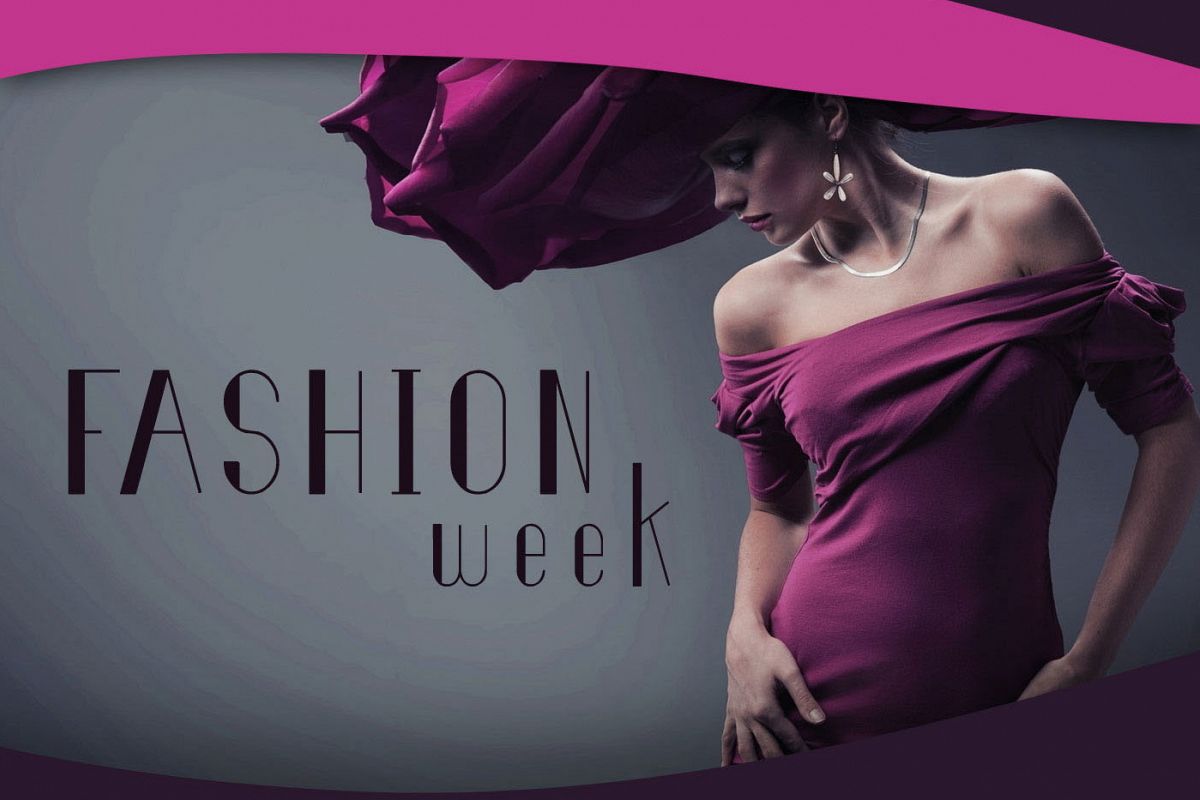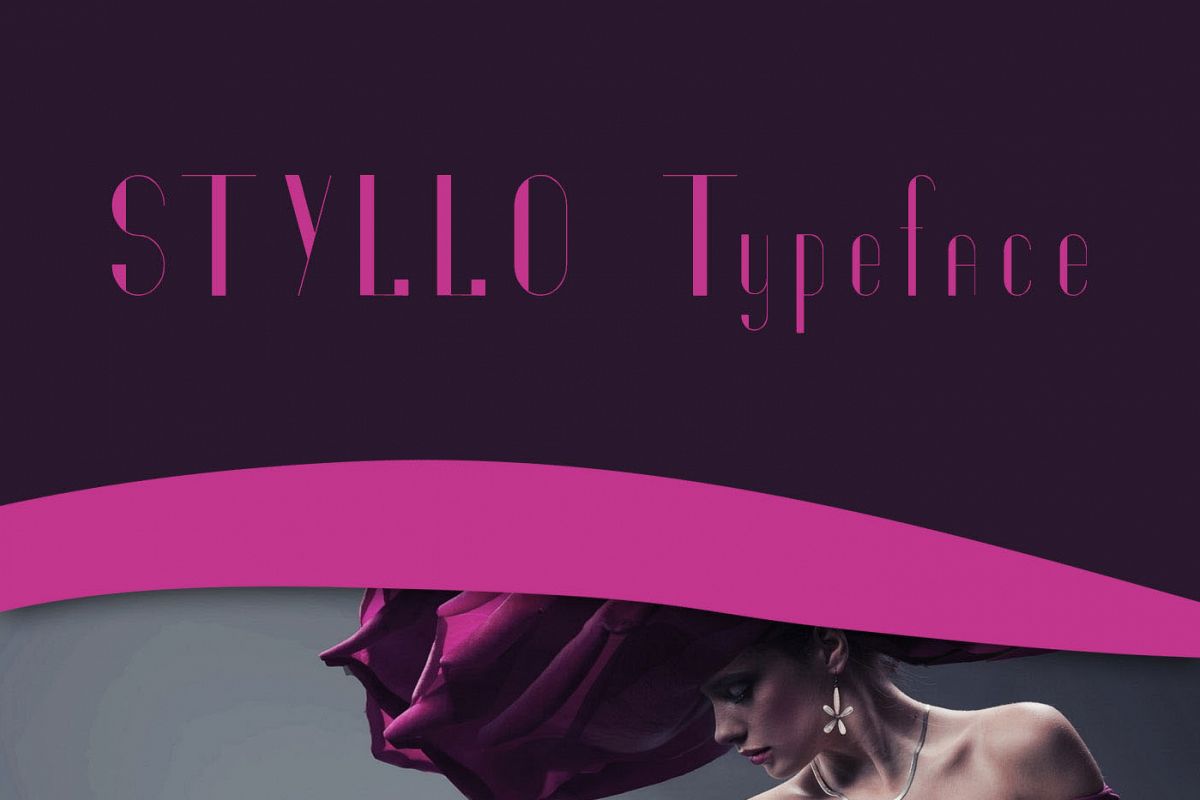
Styllo Display Typeface
Styllo
StylloFat
StylloLine
Styllo is a display typeface that looks great on design materials for the fashion industry. It contains three fonts in OTF format.